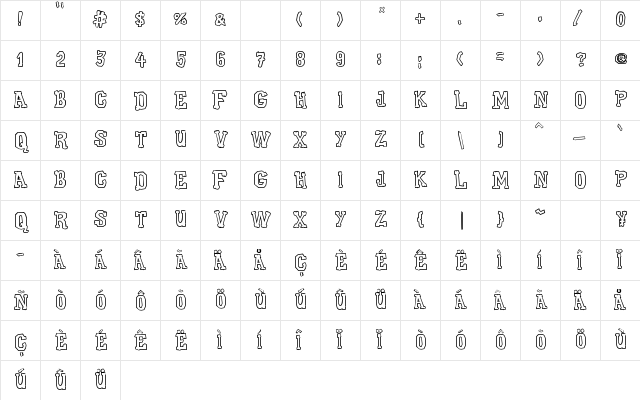
Xilo Galdino Cast Regular
Design Context for Xilo Galdino Cast Typeface
Xilo Galdino Cast is a composed and adaptable typeface that performs quietly and consistently across a wide range of design contexts.
Pro Tip: Use Xilo Galdino Cast in both headline and body roles to test its range before committing to a single application.